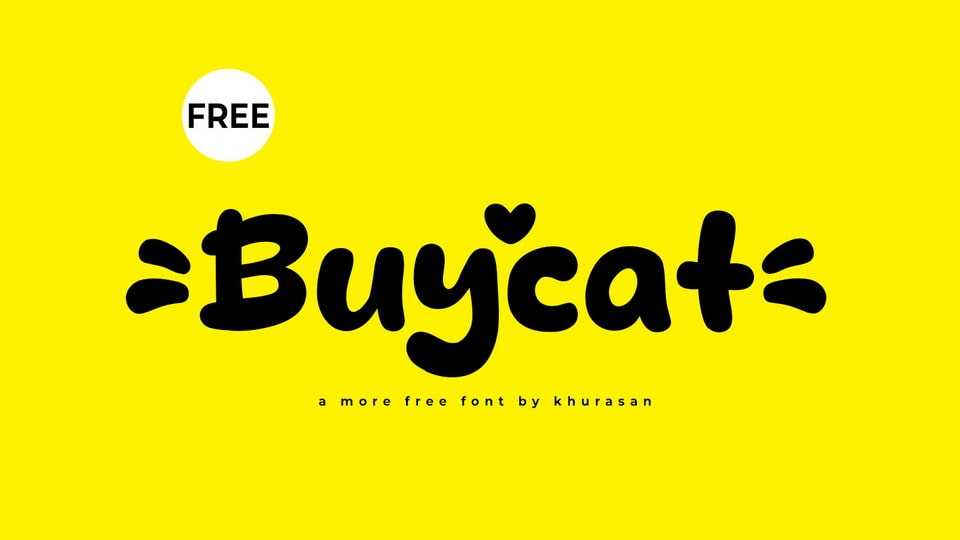
Download Buycat font, a lovely, playful, and cute handwritten typeface that adds a touch of charm and delight to your designs. Buycat font is crafted with care and whimsical flair, featuring gentle curves and adorable details that evoke a sense of warmth and innocence.